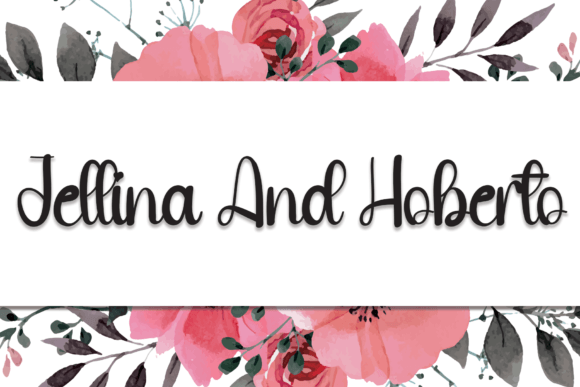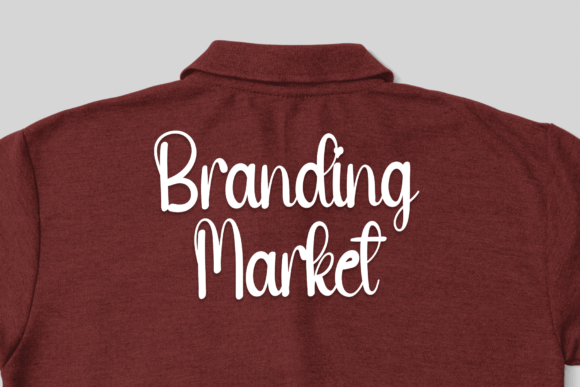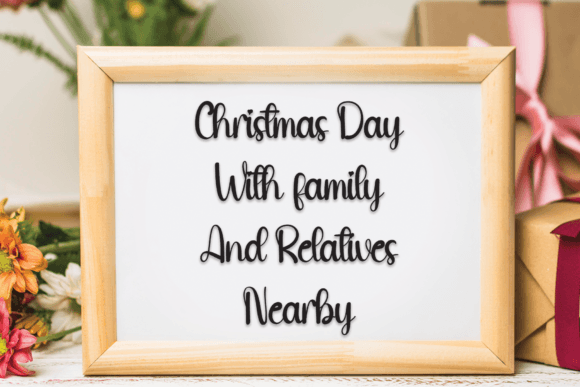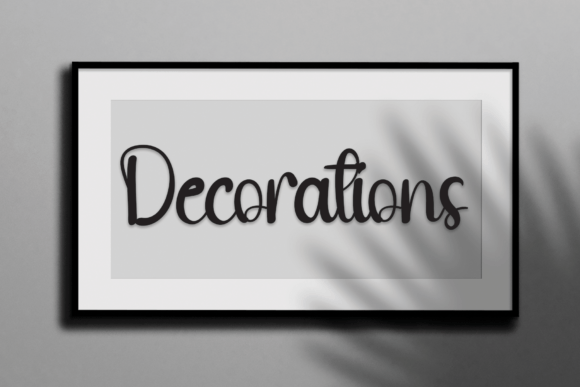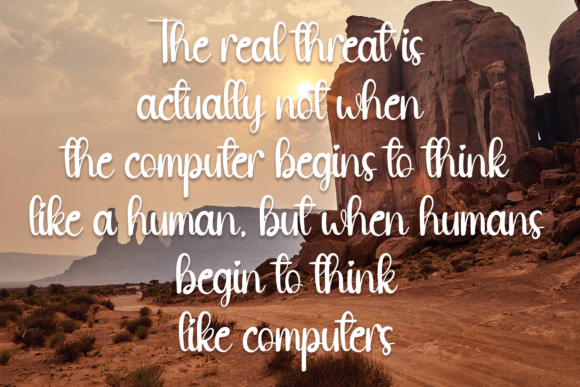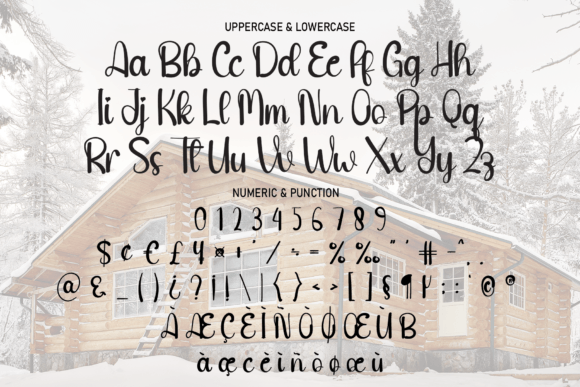
Introducing Handmade Farmhouse Font: The Perfect Blend of Charming and Elegant
Are you a designer or crafter looking for a font that adds a touch of warmth and personality to your designs? Look no further than the Handmade Farmhouse Font. This beautiful, handwritten font is perfect for creating stunning wedding invitations, thank you cards, quotes, greeting cards, logos, business cards, and more.
The Charm of Handmade Farmhouse Font
Handmade Farmhouse Font is a unique and elegant font that exudes a sense of charm and sophistication. Its handwritten feel makes it perfect for designs that require a personal touch. The font’s rustic, farmhouse-inspired aesthetic adds a touch of warmth and coziness to any design, making it ideal for creating a sense of nostalgia and whimsy.
One of the best things about Handmade Farmhouse Font is its versatility. It can be used for a wide range of design projects, from wedding stationery to business branding. The font’s elegant and refined feel makes it perfect for:
- Wedding invitations and wedding stationery
- Thank you cards and greeting cards
- Quotes and typography designs
- Logos and business branding
Why Choose Handmade Farmhouse Font?
There are many reasons why Handmade Farmhouse Font stands out from other fonts. Here are just a few:
- Unique and handmade feel: The font’s handwritten feel makes it truly unique and special.
- Elegant and refined: Despite its rustic aesthetic, the font is elegant and refined, making it perfect for a wide range of designs.
- Easy to read: The font is clear and easy to read, making it perfect for body text and headings.
- High-quality design: The font is designed to the highest standards, ensuring that it looks great in any design.
Tips for Using Handmade Farmhouse Font
Here are a few tips for using Handmade Farmhouse Font in your designs:
- Use it for headings and titles: The font is perfect for headings and titles, where its elegant and refined feel can really shine.
- Pair it with other fonts: Handmade Farmhouse Font pairs well with other fonts, such as serif and sans-serif fonts.
- Experiment with colors: The font looks great in a range of colors, from bold and bright to soft and pastel.
- Use it for branding: The font’s unique and handmade feel makes it perfect for branding and business identity.
Handmade Farmhouse Font is a beautiful and versatile font that is perfect for designers and crafters looking to add a touch of charm and elegance to their designs. Its unique and handmade feel, combined with its elegant and refined aesthetic, make it perfect for a wide range of design projects. Whether you’re creating wedding stationery, business branding, or social media graphics, Handmade Farmhouse Font is sure to impress.